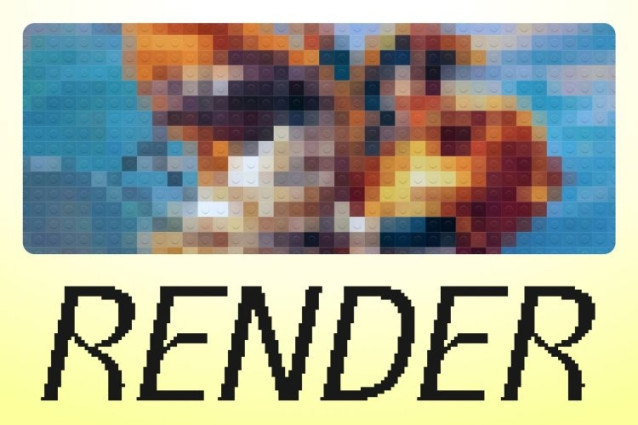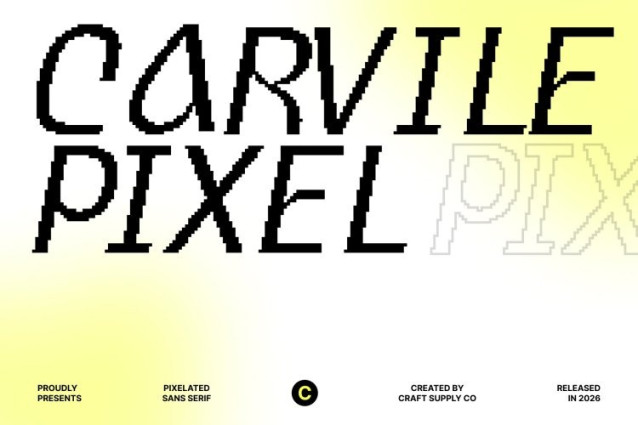
CS Carvile Pixel Font
CS Carvile Pixel Font This is a modern sans serif font that combines clean geometry with smooth, relaxed curves, reimagined through a pixel-inspired structure. Its carefully crafted letterforms feel soft and flowing, yet structured with a subtle pixel grid that adds character and visual intrigue.
Pixel Aesthetic with a Calm, Professional Feel
Balancing professionalism and approachability, this font maintains a polished appearance with a calm, relaxed tone. The pixel style introduces a nostalgic digital charm evoking early technology and retro screens while the rounded curves keep the font friendly and modern. The result is a unique typeface that feels both trustworthy and visually engaging.
Perfect for Digital, Retro-Tech, and Modern Branding
Designed with versatility in mind, this font works beautifully across branding, social media, editorial layouts, UI design, and digital interfaces. Its pixel character makes it especially eye-catching for projects inspired by old technology, gaming culture, or digital nostalgia, while still fitting seamlessly into modern visual identities.
Ideal for Logos, Headlines, and Digital-Focused Design Projects
Whether used for logos, headings, posters, or promotional materials, this font delivers strong readability with a distinctive personality. The blend of smooth curves and pixel precision ensures your message feels modern, relaxed, and visually memorable perfect for digital design, tech brands, creative studios, and retro-inspired concepts.